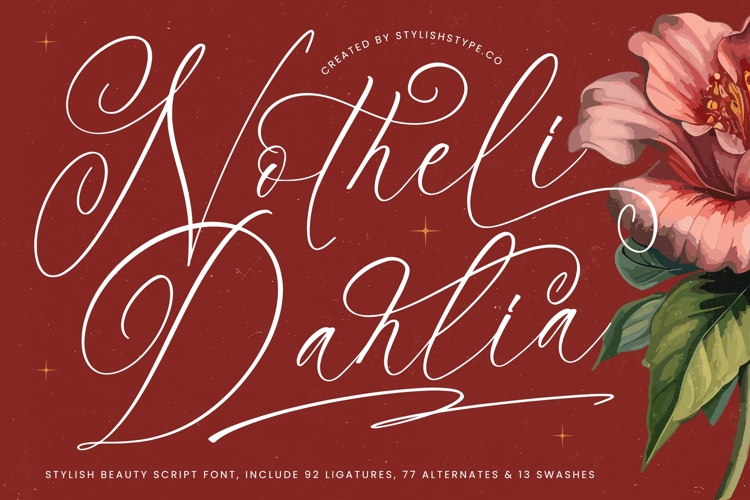
Notheli Dahlia - Stylish Beauty Script Font
Notheli Dahlia is a stylish beauty script font designed to radiate elegance, romance, and refinement. Its graceful letterforms, flowing ligatures, and ornate swashes make it a perfect choice for projects that demand timeless sophistication and artistic charm. With 92 ligatures, 77 alternates, and 13 swashes, this font offers exceptional flexibility, allowing designers to create custom lettering that feels luxurious and unique.
This font is highly effective in branding. Whether used for luxury logos, boutique shops, fashion brands, or cosmetic packaging, Notheli Dahlia communicates beauty and exclusivity. Its handwritten elegance ensures that branding projects stand out with a strong identity and timeless appeal, making it perfect for premium markets.
In editorial and publishing, the font adds grace and personality. Magazines, book covers, lifestyle features, and invitations benefit from its romantic and stylish flow. It ensures editorial layouts achieve both visual elegance and clear readability, making every title or heading a statement of sophistication.
For web typography, Notheli Dahlia integrates seamlessly across blogs, websites, portfolios, and social media content. Its ornamental calligraphy adds intimacy and refinement, ensuring that digital media projects resonate with authenticity and visual luxury.
The typeface also thrives in advertising and marketing. Posters, campaigns, and promotional designs gain impact through its flowing strokes and refined personality. It ensures advertising feels both captivating and artistic, appealing to audiences that value elegance and creativity.
Notheli Dahlia is a natural fit for wedding and event design. With its ornate swashes and romantic alternates, it elevates invitations, greeting cards, event signage, and stationery into keepsakes of elegance and love. It is especially suited for wedding branding, romantic celebrations, and luxury events that require a touch of artistry.
In packaging design, the font adds charm and exclusivity. From perfumes and jewelry to gourmet products and artisan goods, Notheli Dahlia transforms packaging into a storytelling element. It ensures products communicate luxury, beauty, and craftsmanship.